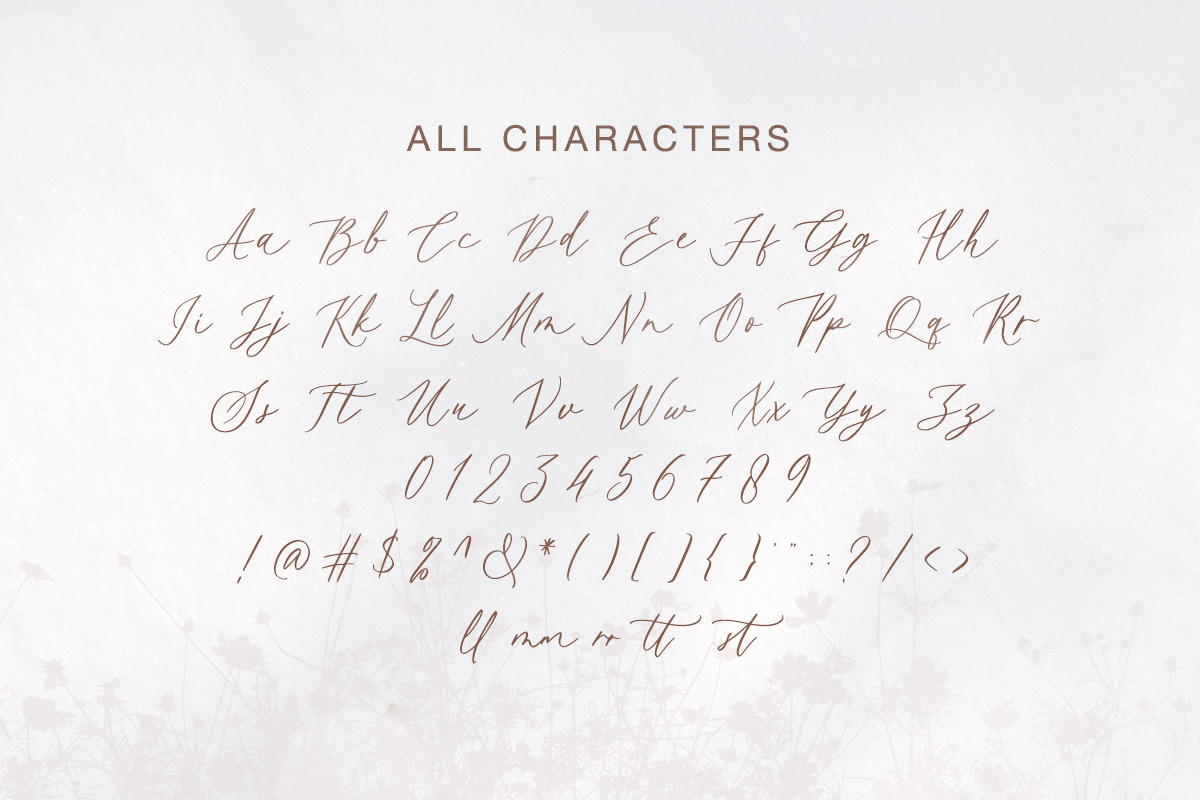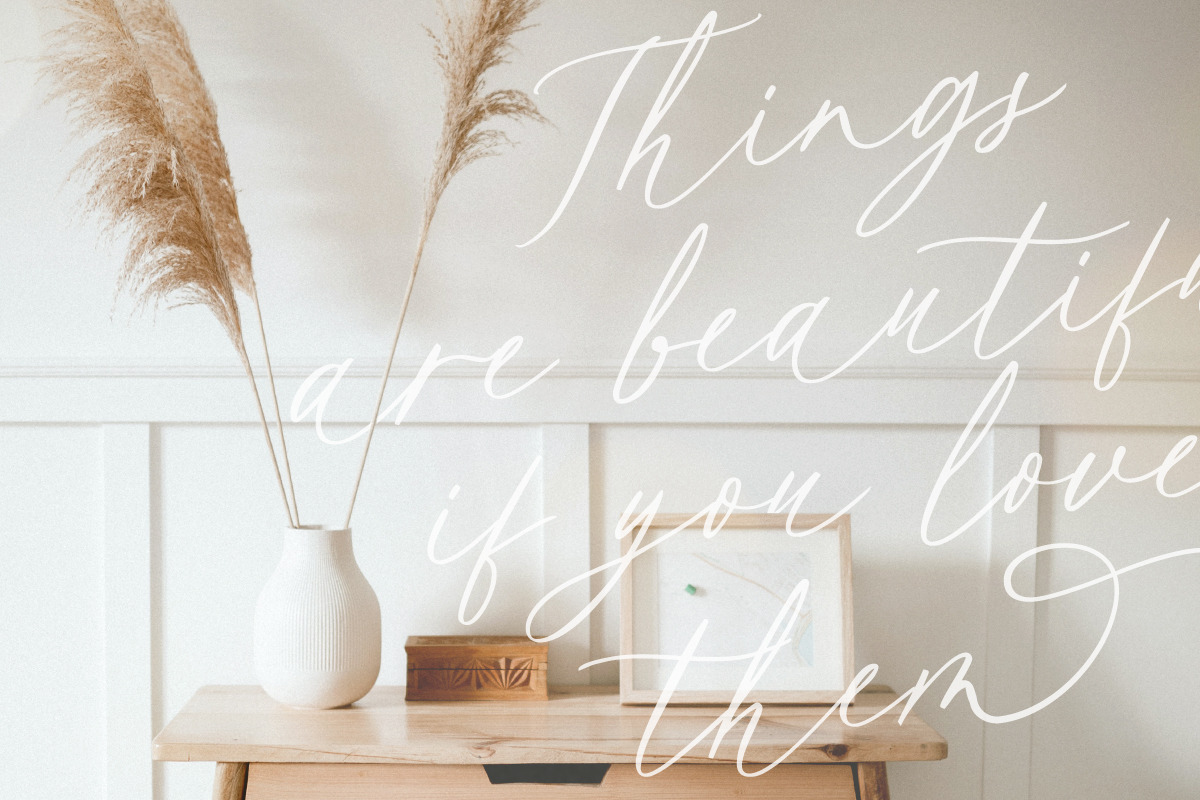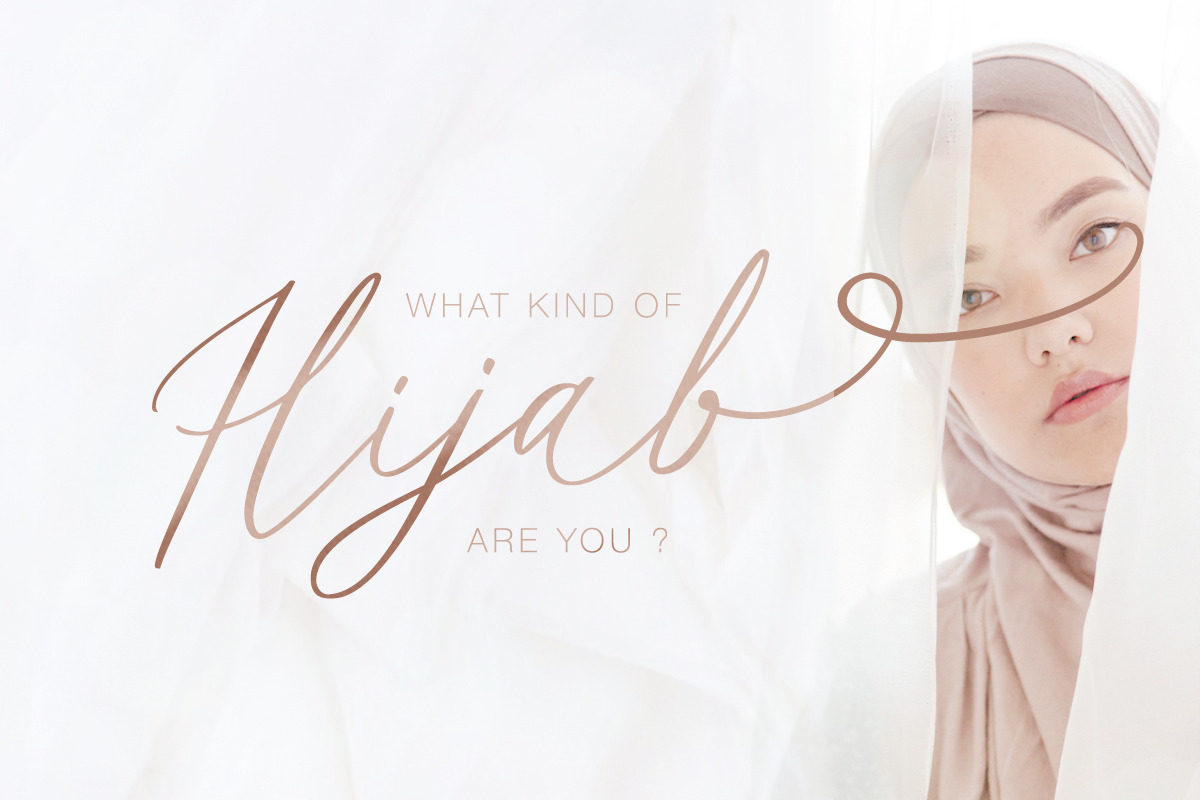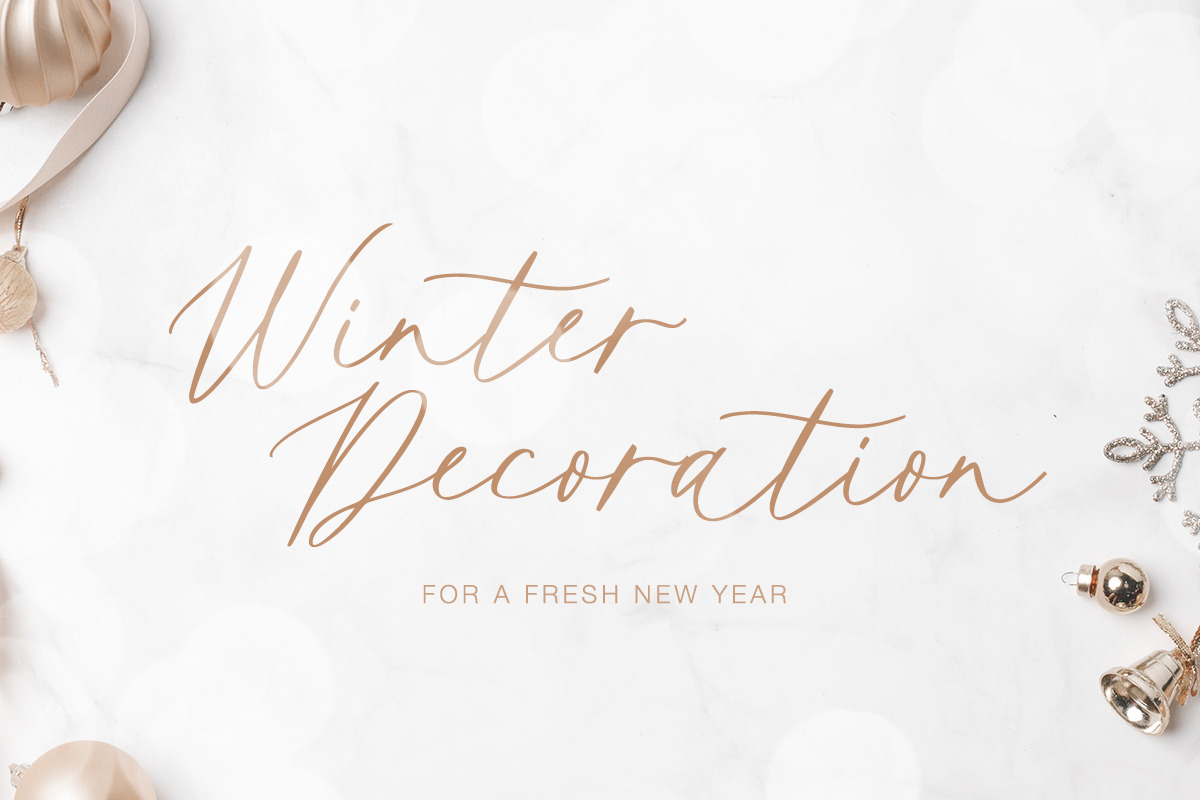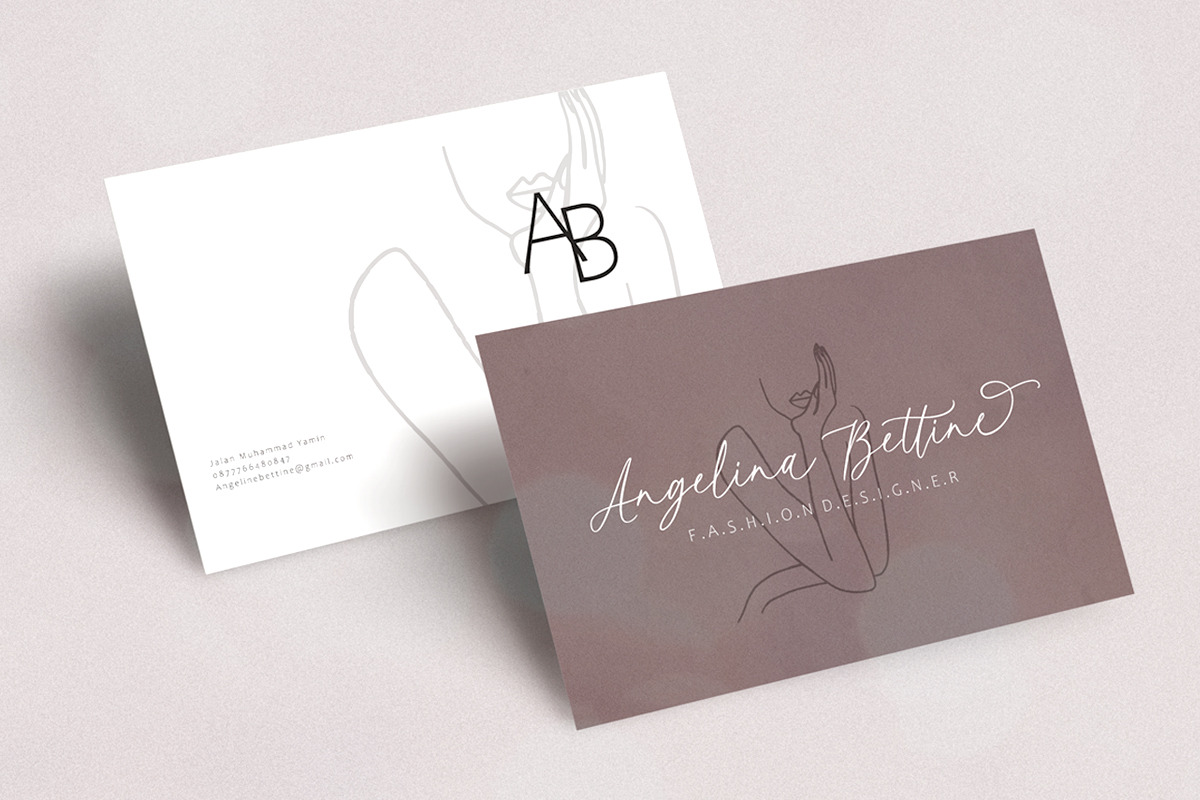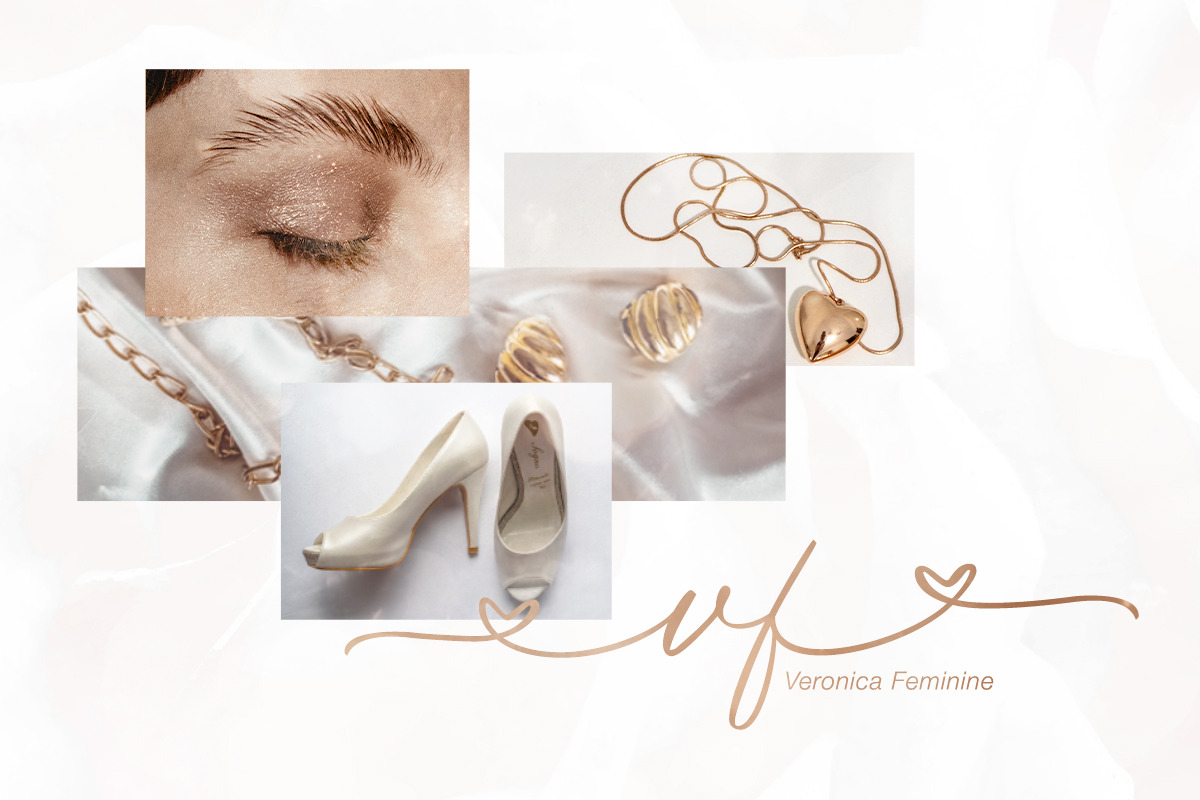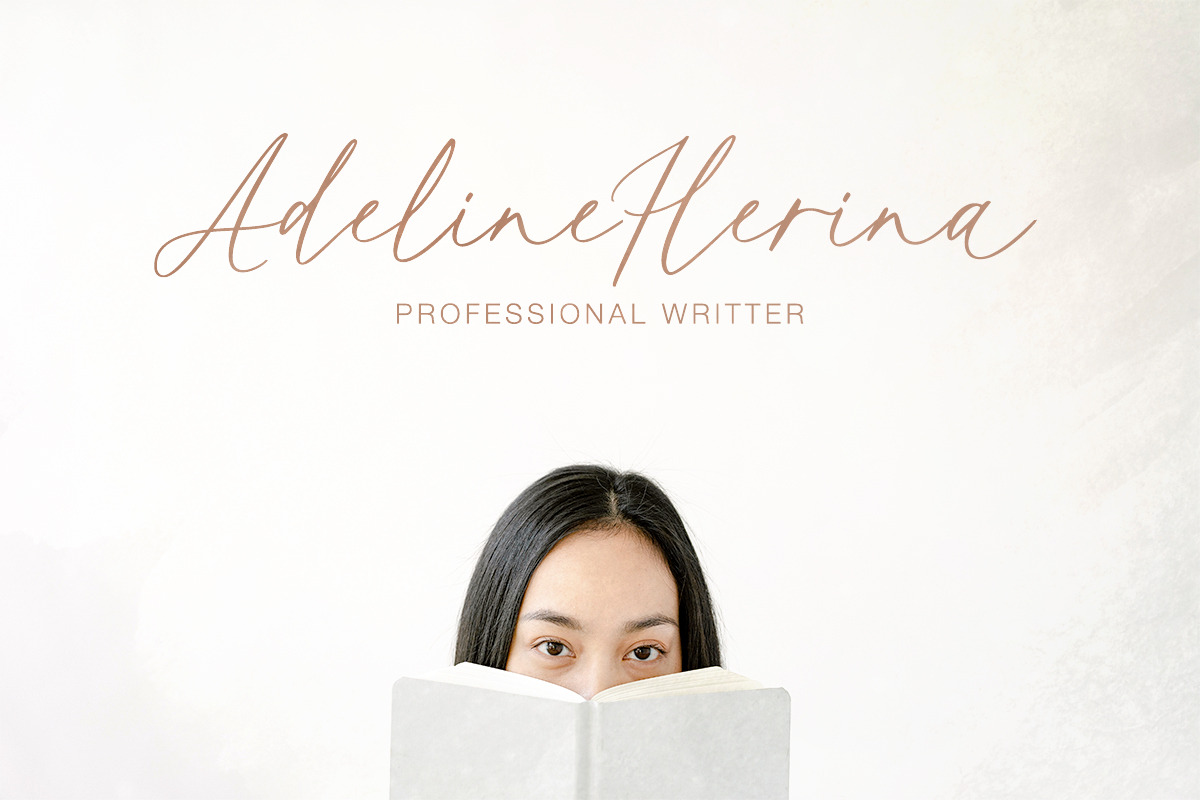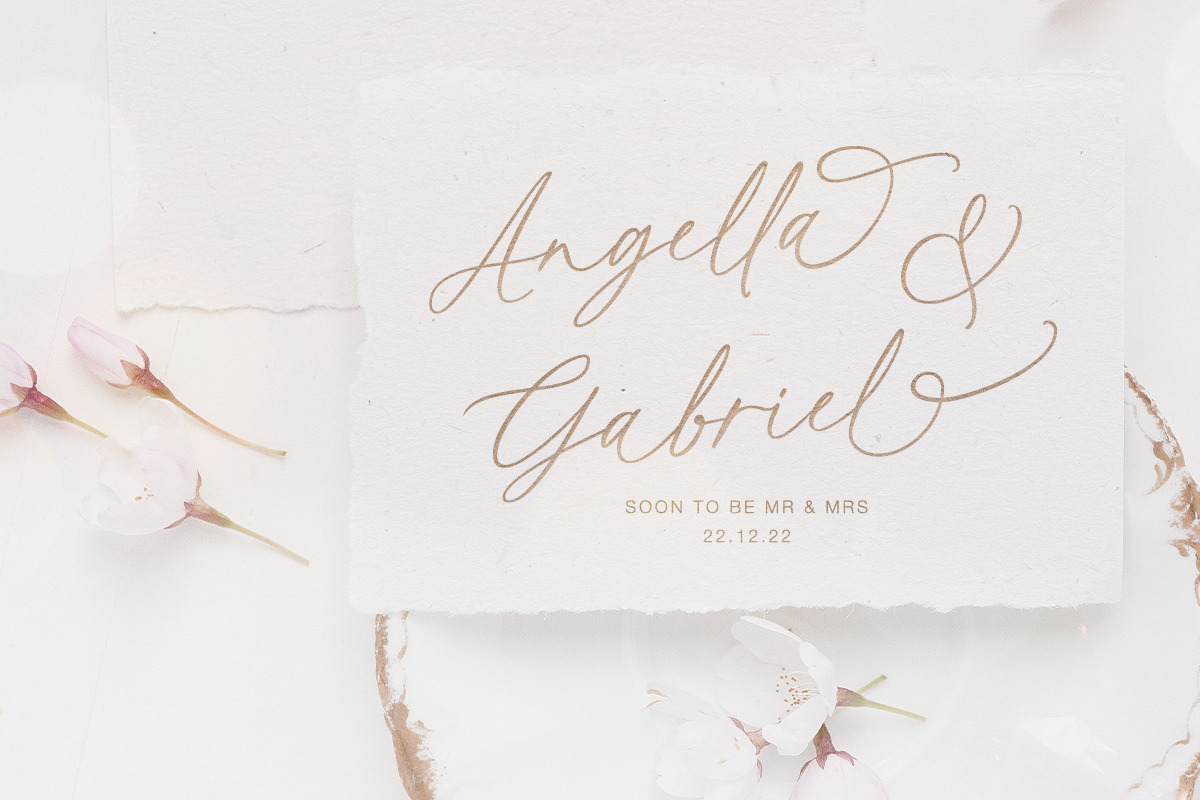
Adore Stacy - Beautiful Love Script
Adore Stacy is a beautiful handwritten script, featuring a fluid and flowing style with touch of love. This font is based on brush lettering and have a natural, expressive feel, making them suitable for a any design projects especially wedding invitations. This font also add sophistication and elegance to any design and can be used to create a handwritten look without the time and effort of actual calligraphy. This font also contains ligature, alternates, also terminal and end swash. Adore Stacy also support Multilingual.